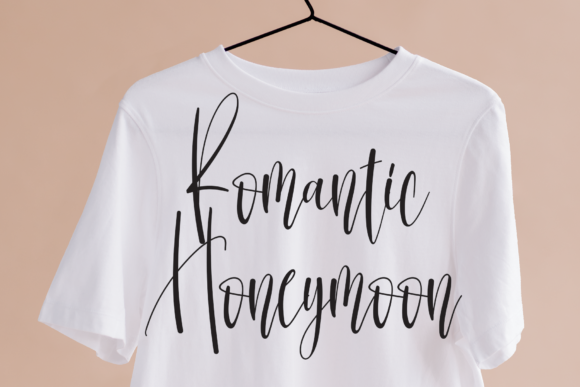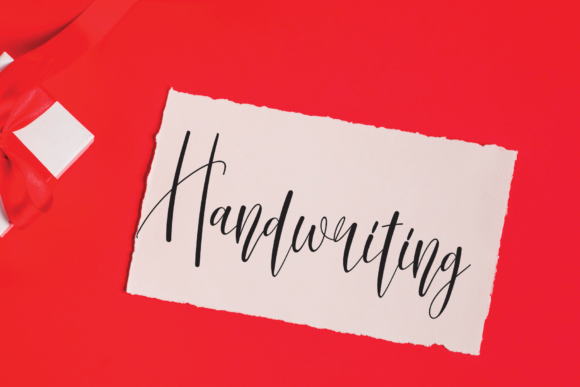
Thanksgiving Font
db-ku.com - Script & Handwritten -- Thanksgiving is a creative handwriting font. It’s suitable for any projects such as logos, branding projects, homeware designs, product packaging, mugs, quotes, posters, shopping bags, t-shirts, book covers, name cards, invitation cards, and greeting cards.